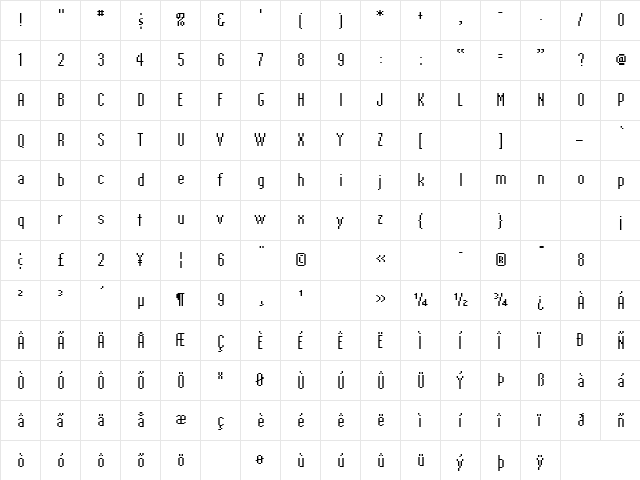
EmperorTen Regular
Design Context for EmperorTen Typeface
EmperorTen offers clean, dependable letterforms without strong stylistic allegiance, making it a practical choice for designers who need flexibility.